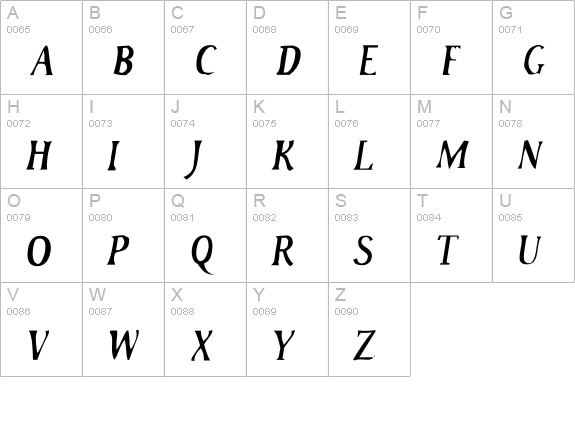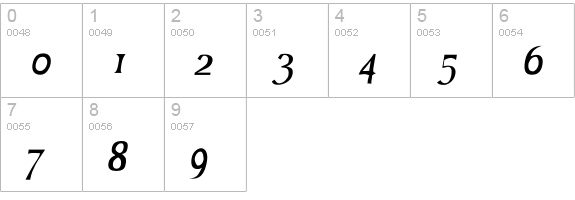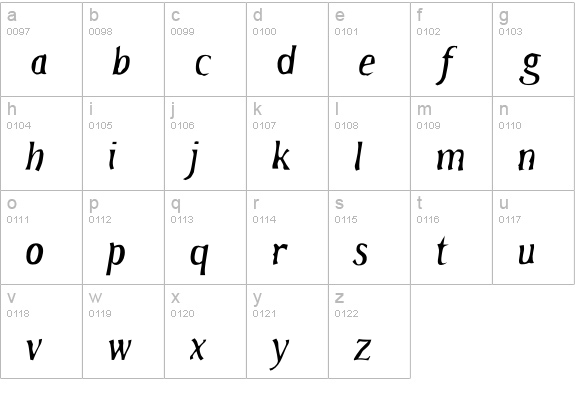
HateNoteItalic Font Details
Introducing HateNoteItalic, a bold and captivating font that exudes an air of edgy sophistication. Designed for those who dare to make a statement, this font is perfect for adding a touch of rebellious flair to any project. With its sleek and slanted letterforms, HateNoteItalic commands attention and demands to be noticed. Each character is intricately crafted, with sharp angles and a distinct style that is both modern and timeless. Whether used for headlines, logos, or body text, this font adds an undeniable sense of attitude and personality to any design. But what sets HateNoteItalic apart from other fonts is its unique combination of strength and elegance. The italicized form adds a touch of fluidity and movement, creating a sense of energy that draws the eye and keeps it engaged. It is a font that speaks volumes without saying a word. And the best part? HateNoteItalic is available for free download at FontsMarket.com. That's right, this extraordinary font can be yours at no cost, giving you the opportunity to unleash your creativity without breaking the bank. So why wait? Download HateNoteItalic today and let your designs make a bold statement that won't be easily forgotten.